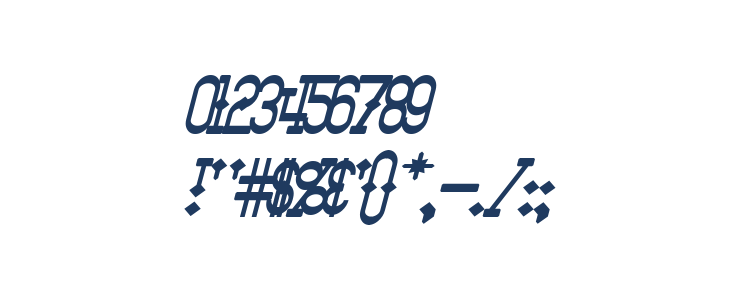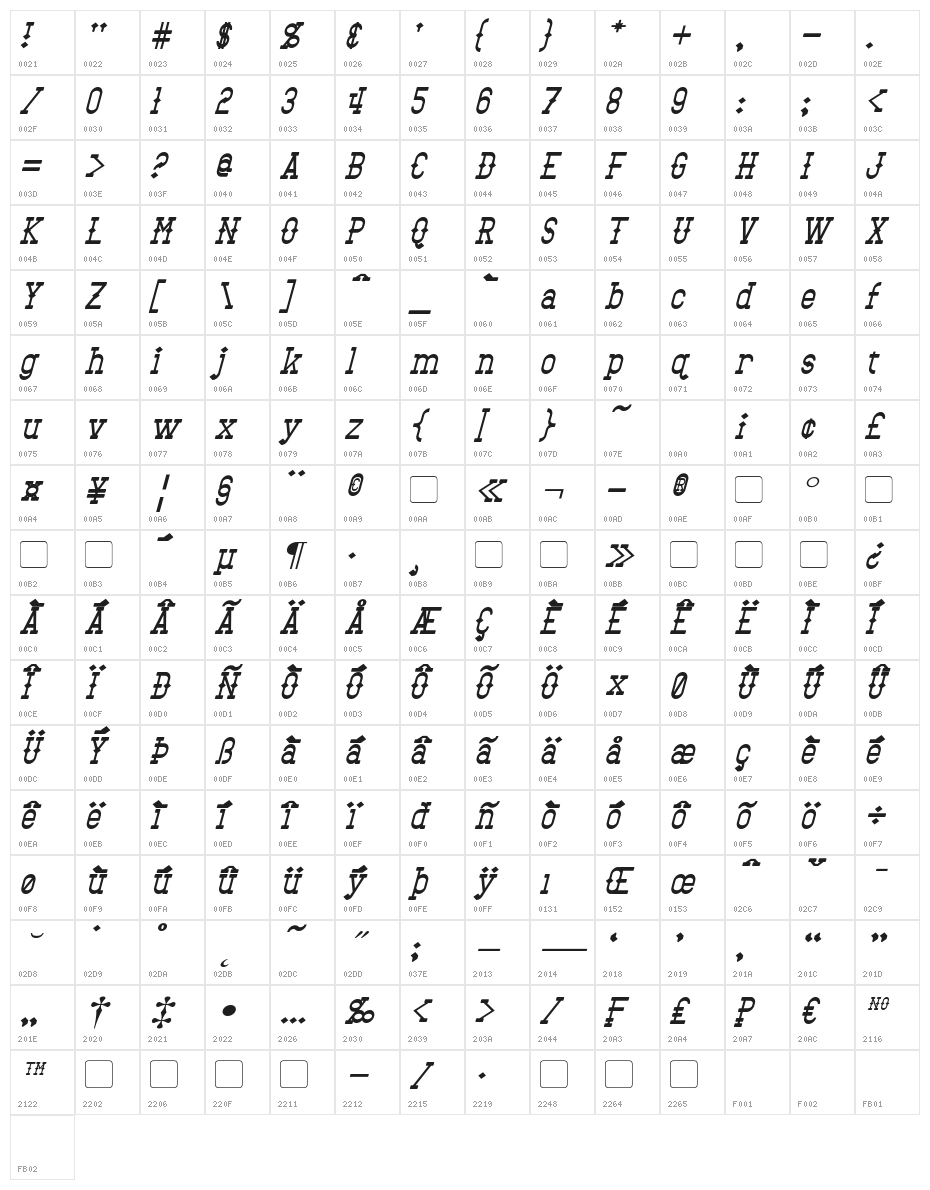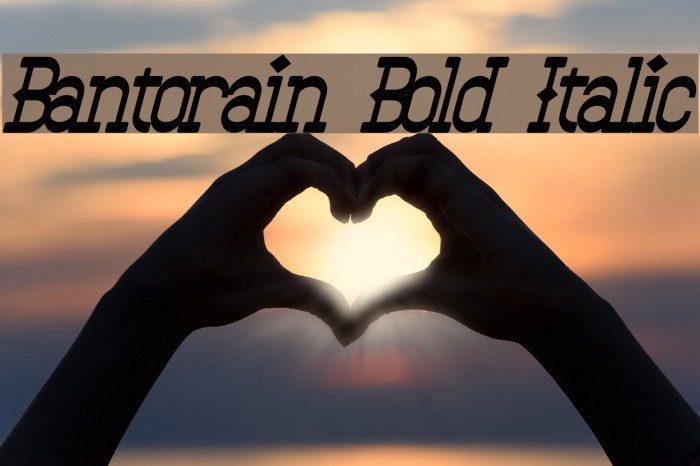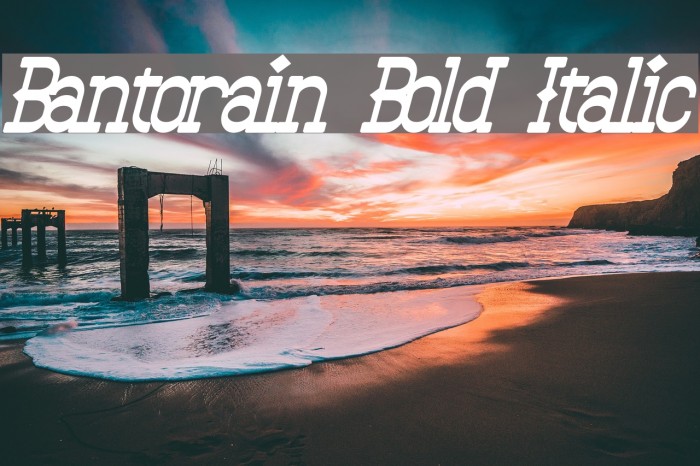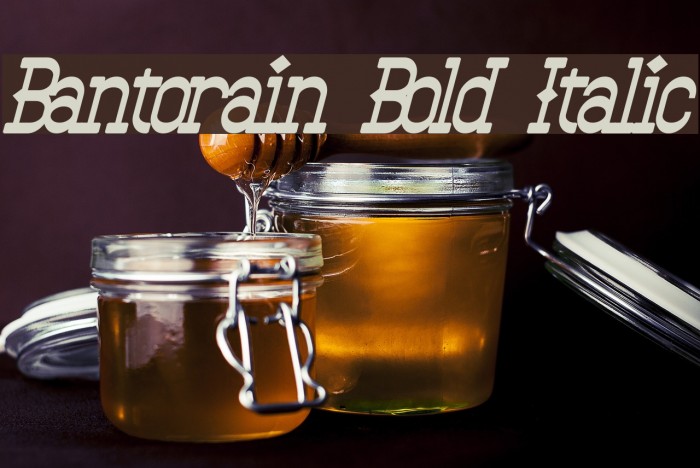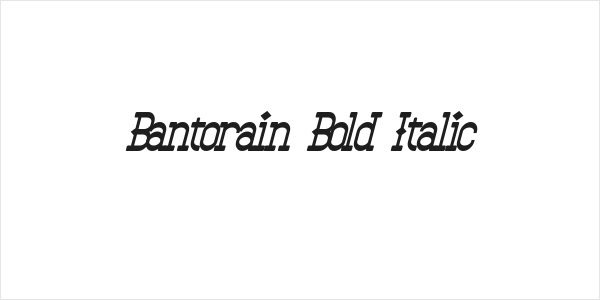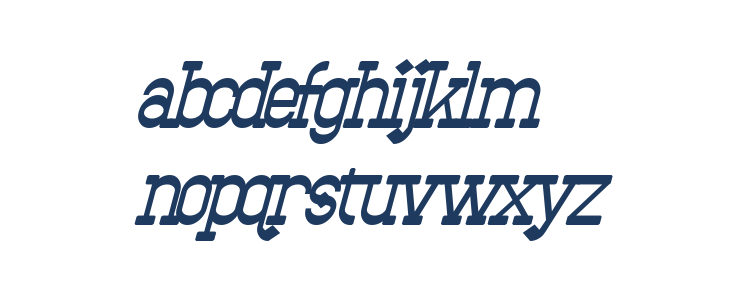
Bantorain Bold Italic Font
Bantorain Bold Italic Description
This font features a bold and italic style with a strong, dynamic presence. The characters are slanted, giving a sense of motion and energy. The strokes are thick, providing a robust and impactful look. The uppercase and lowercase letters maintain a consistent style, with the uppercase being slightly more pronounced. The numerals are clear and bold, matching the overall aesthetic. Special characters are well-integrated, maintaining the bold and italic characteristics. The font's design is suitable for making a statement, with its boldness and slant adding emphasis and flair.
| Proposed Projects | Ideal for headlines, posters, branding, and any project requiring a strong, impactful typeface. |